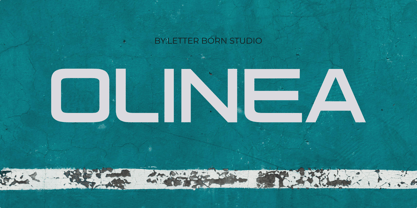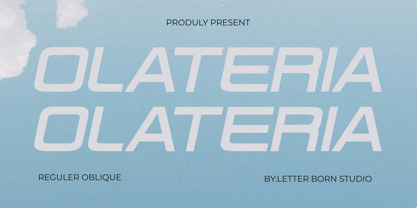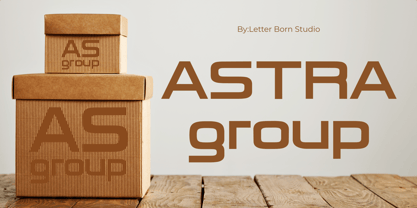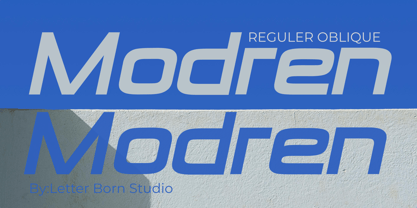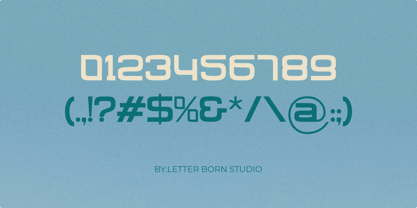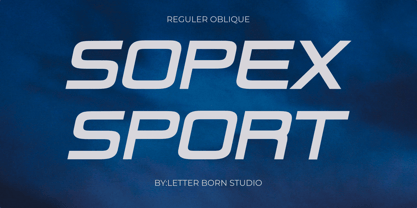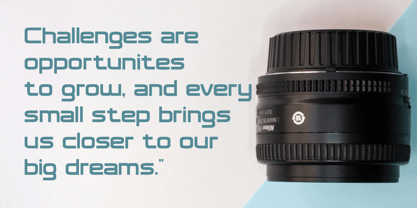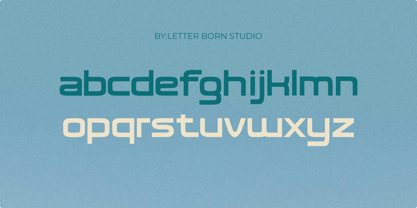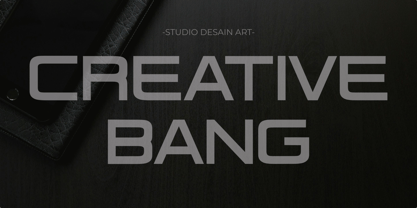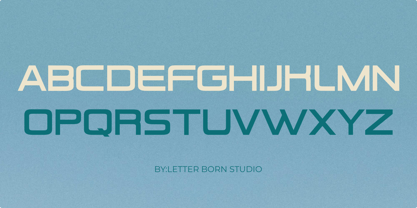
Olateria
by Letter Born Studio
The Olateria Font Family was designed by Firman Satrio and published by Letter Born Studio. Olateria contains 2 styles and family package options.
Olateria is a modern typeface with an elegant design and balanced proportions. Combining classic and contemporary elements, this font is suitable for logos, headlines, and main text, conveying a professional and friendly impression. Olateria is ideal for various media, both print and digital, maintaining a clear and appealing appearance. The oblique version of this font adds a dynamic, slightly slanted touch, offering a bolder yet still elegant modern feel. With its flexible character, Olateria oblique maintains readability while enriching your design expression.
Designers: Firman Satrio